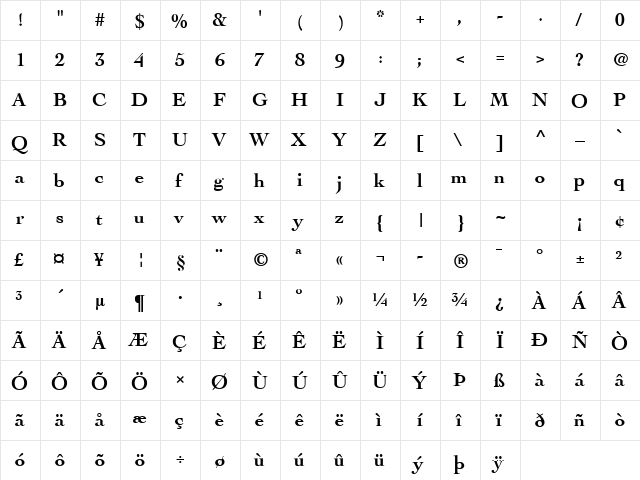
Badr LT Bold
| Foundry | Linotype GmbH |
| Designer | Osman Husseini |
Design Context for Badr LT Typeface
Badr LT offers clean, dependable letterforms without strong stylistic allegiance, making it a practical choice for designers who need flexibility. Its bold stroke weight gives it real presence on the page.
Pro Tip: Pair Badr LT with a font of contrasting weight or personality to build a more expressive typographic hierarchy.